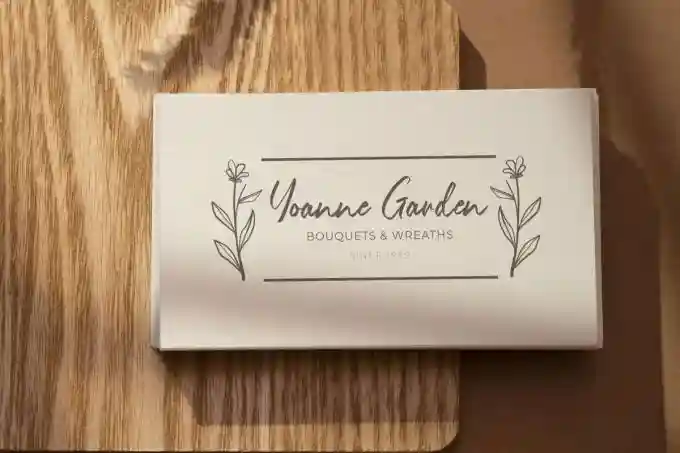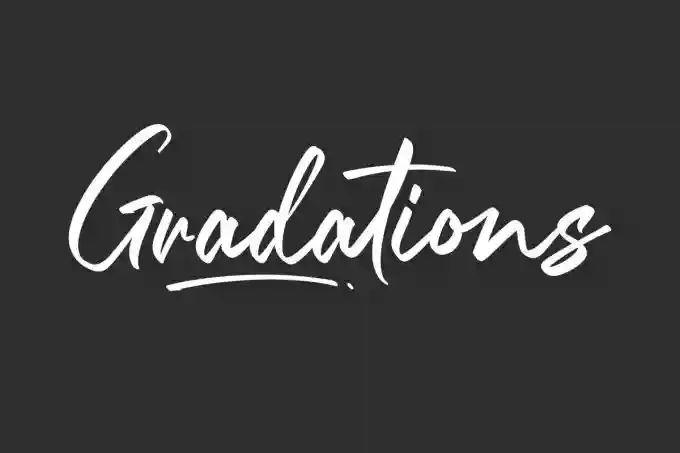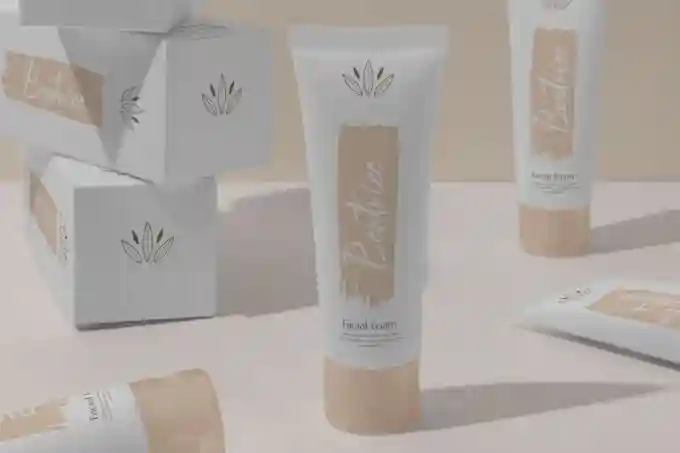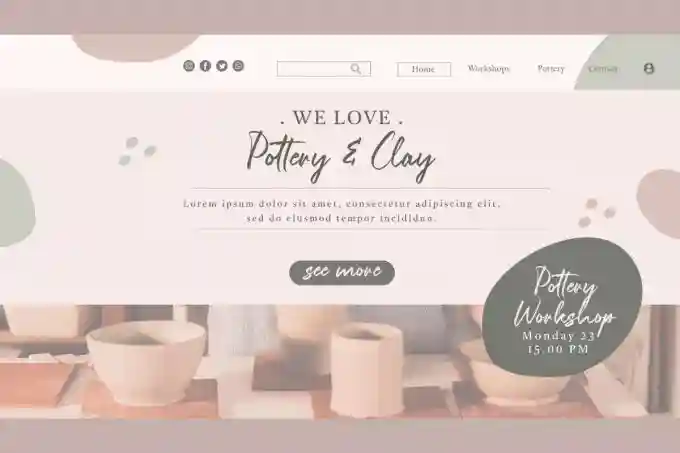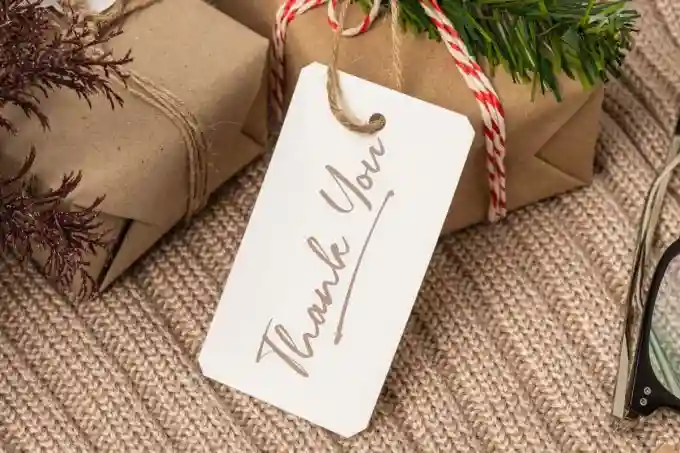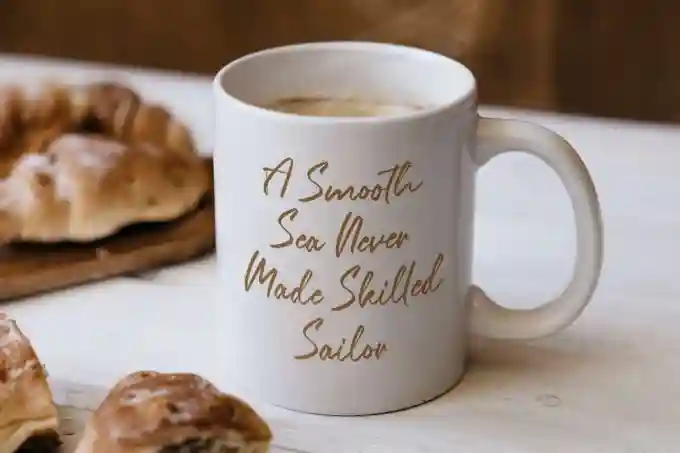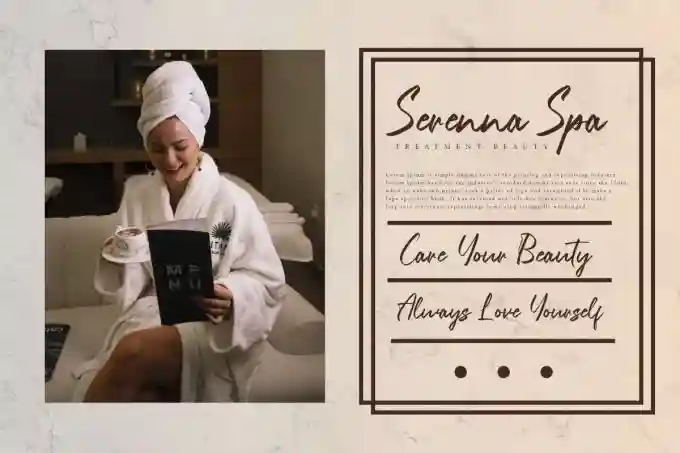
Gradations Font is a stylish script font with calligraphy style, created by VinType Studio. Once you see this, you will be in a better mood because the characters in this font are very beautiful and sleek. This font will be suitable for many industries, such as advertisement, art, café, fashion, florist, handicrafts, perfume, printing, publishing, skincare, and more!
Gradations Font includes full set of Uppercase and Lowercase Basic Characters, Numerals and Punctuation. Also it contains Ligature and Swoosh characters to make it catchy and add more aesthetic fonts to your extraordinary project, such as brand logo, brochure, custom design, frame art, label, packaging design, poster, quotes, screen printing, stationery, website, etc.